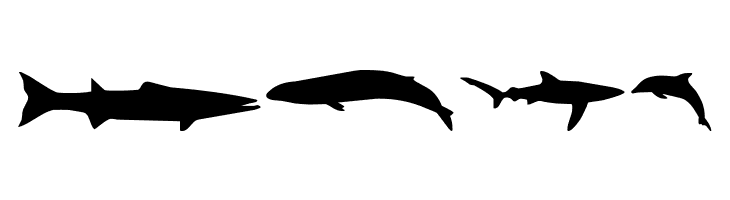
A bold, hand-drawn font with a raw and expressive style.
A bold, decorative font with expressive strokes and a script-like, artistic style.
A bold, expressive script font with a marker-like, handwritten style.
A bold, handwritten-style font with expressive, dynamic curves.
A bold, marker-style font with a playful and dynamic appearance.
A classic serif font with high contrast and elegant, refined details.
An elegant oblique serif font with high contrast and sharp serifs.
A classic serif font with high contrast and elegant, sophisticated design.
An elegant, calligraphic font with high contrast and ornate details.
An elegant, calligraphy-inspired font with ornate details and flowing curves.
A bold, inline decorative font with strong geometric shapes and sharp angles.
A bold, inline font with a strong, geometric design and striking contrast.
A bold, italicized font with a textured, vintage appearance.
A display font made from silhouettes of giant sea animals.
A bold, jagged font with sharp edges and a dynamic, energetic style.
A dynamic and expressive script font with fluid, cursive letterforms.
A bold, modern sans-serif font with geometric shapes and uniform stroke widths.
A bold, geometric font with a modern and robust style.
A bold, modern sans-serif font with geometric and clean lines.
A bold, modern sans-serif font with geometric lines and uniform width.
A playful, bold handwritten font with fluid strokes.
A bold, elegant font with strong strokes and a commanding presence.
A dynamic and flowing script font with elegant, elongated letterforms.
A dynamic and flowing script font with elegant, slanted letterforms.
A bold, modern sans-serif font with clean lines and excellent readability.
A bold, modern sans-serif font with a slightly condensed style and excellent readability.
A bold, condensed italic font with a modern and dynamic style.